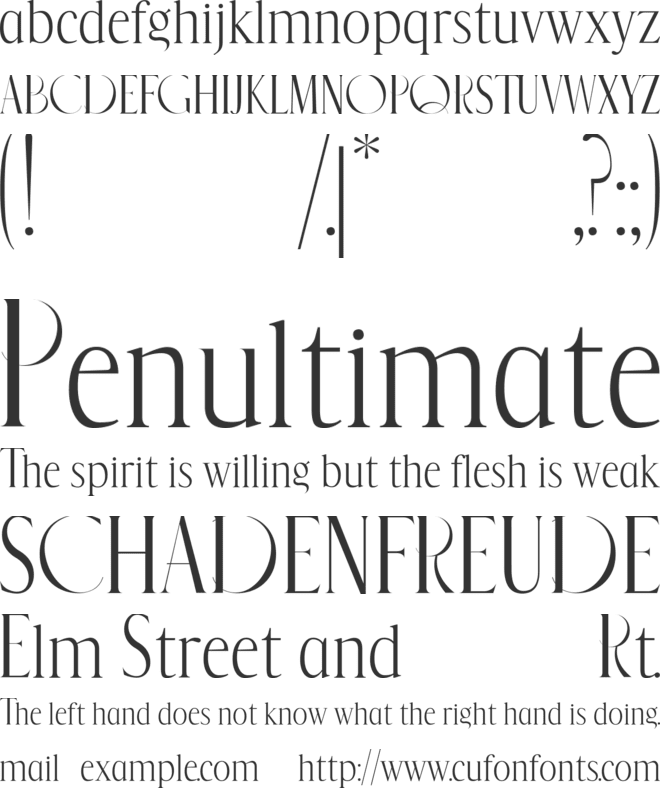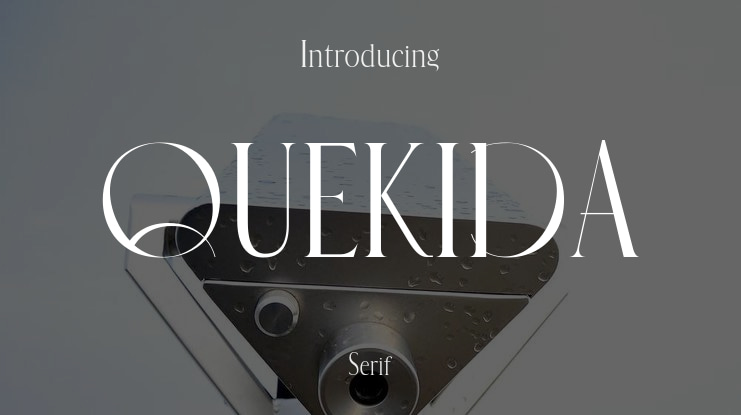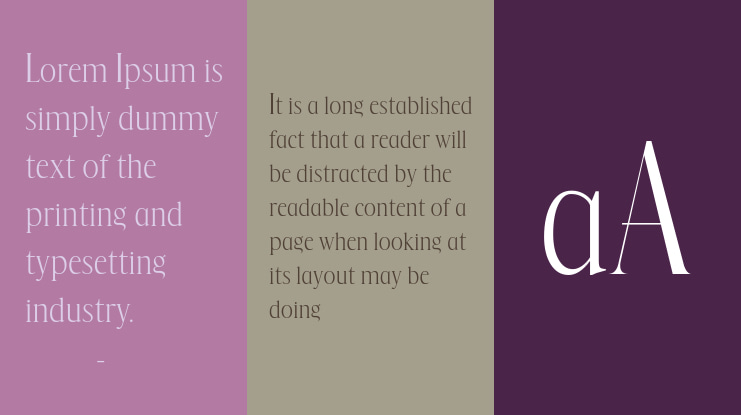
QUEKIDA Font
🎨 Font Description: QUEKIDA is an elegant serif with minimalist flair and modern symmetry, ideal for branding, packaging, and creative editorial design.